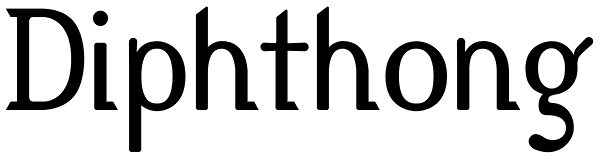
Diphthong
The challenge was to create a single typeface weight that was versatile enough without a large font family, and could be put to use with a variety of media formats, from book text to advertising spreads, all while remaining legible and delightful to...
Diphthong
Diphthong Italic